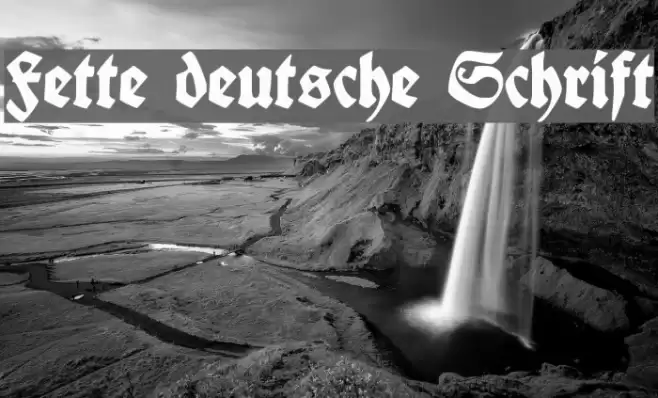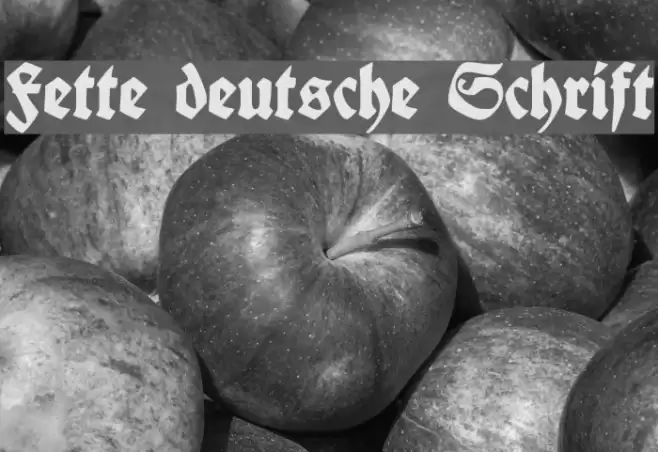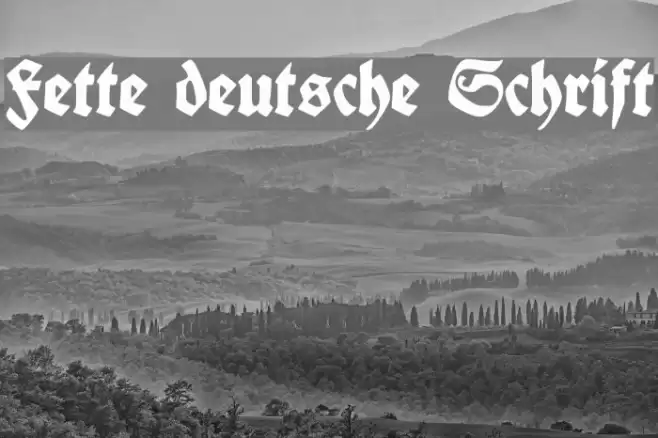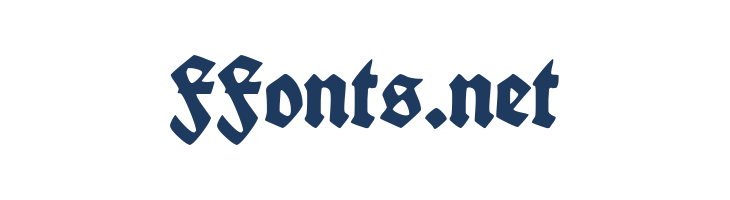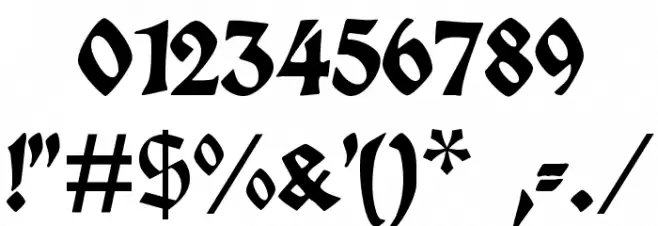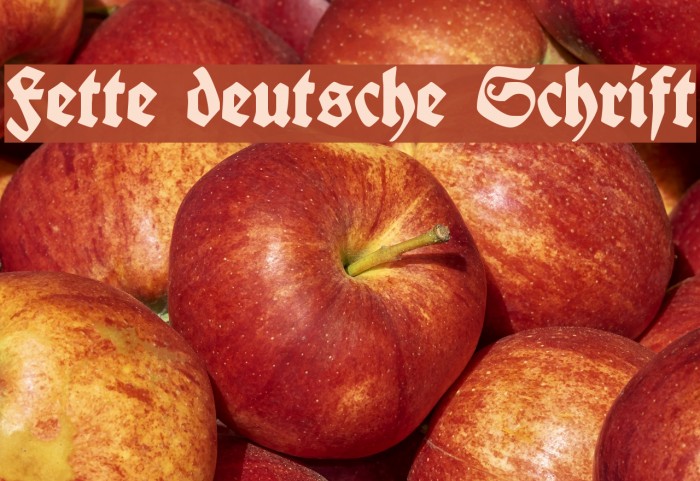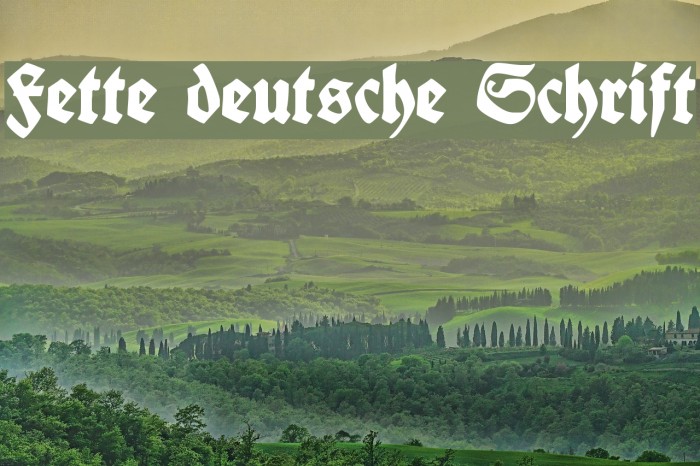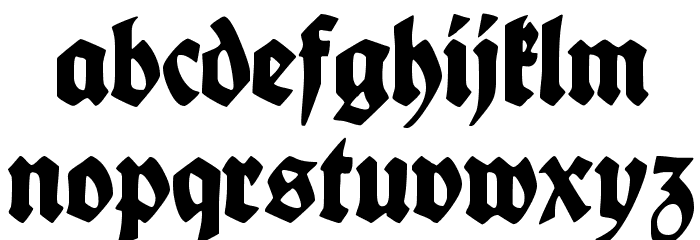
Fette deutsche Schrift Font
Fette deutsche Schrift Description
This font features a bold and dramatic blackletter style, characterized by its sharp, angular lines and ornate detailing. The uppercase letters exhibit a strong presence with their intricate curves and pointed edges, while the lowercase letters maintain a consistent flow with a slightly more subdued elegance. The numerals are equally bold, maintaining the font's overall aesthetic with their distinct, gothic-inspired shapes. Special characters are designed to complement the letterforms, adding to the font's cohesive appearance. This typeface exudes a historical and traditional feel, reminiscent of medieval manuscripts and old-world craftsmanship.
A bold, blackletter font with sharp, angular lines and ornate detailing from Uncategorized fonts.
- Proposed Projects: Ideal for projects requiring a historical or traditional touch, such as certificates, invitations, book covers, and branding for vintage-themed products.
- Overall Style: Vintage
- Use Case: Logos, Headlines, Decorative text